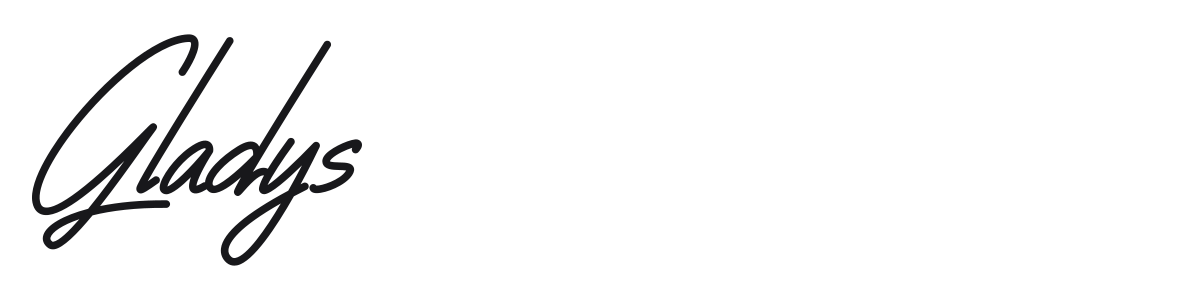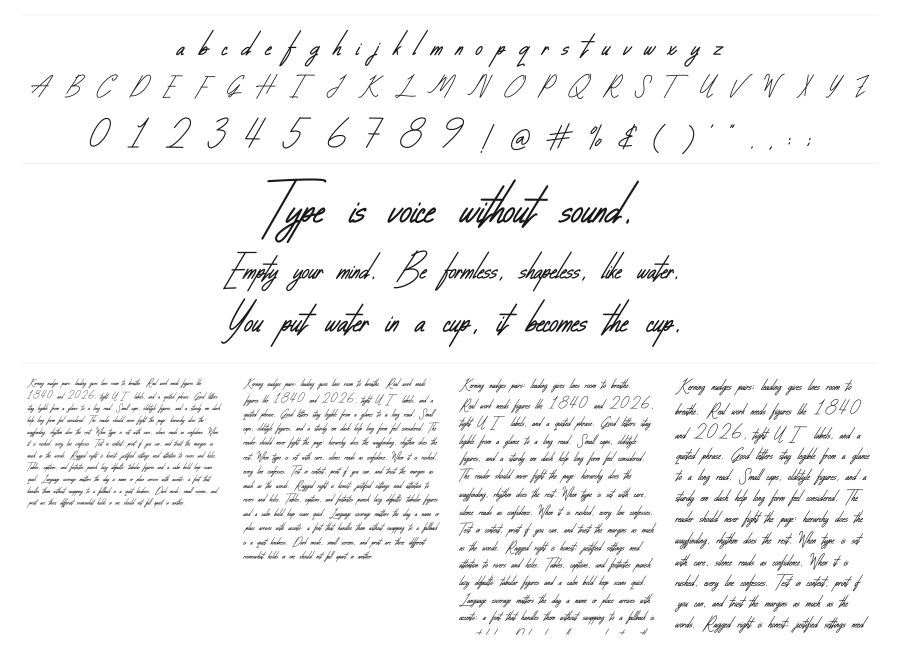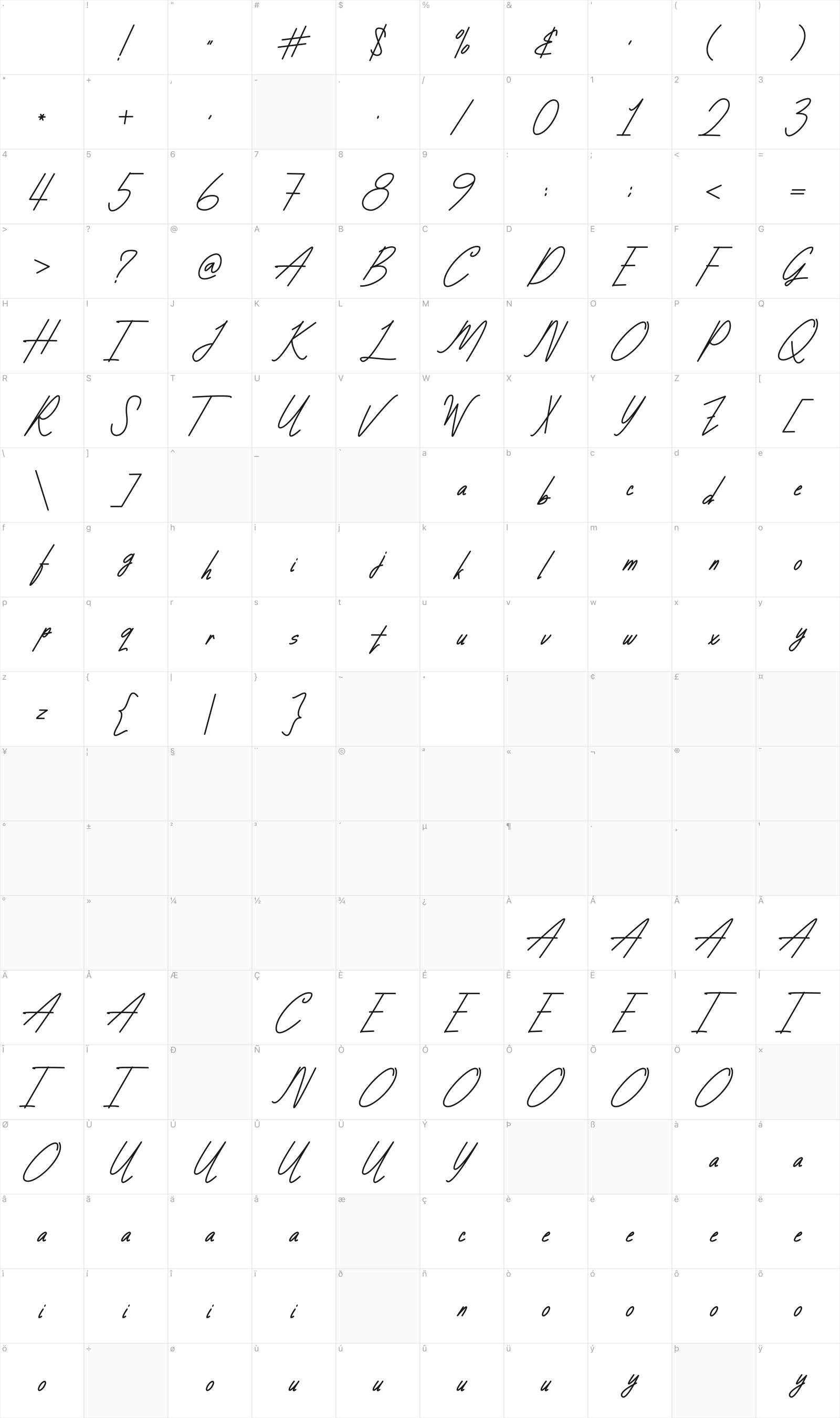
Gladys
Gladys is a casual handwritten script with loose, flowing strokes and a natural pen-on-paper energy. The thin monoweight lines and long connecting strokes give it a signature-like quality that feels personal rather than polished. It works best at large sizes where the rhythm of the letterforms can breathe.